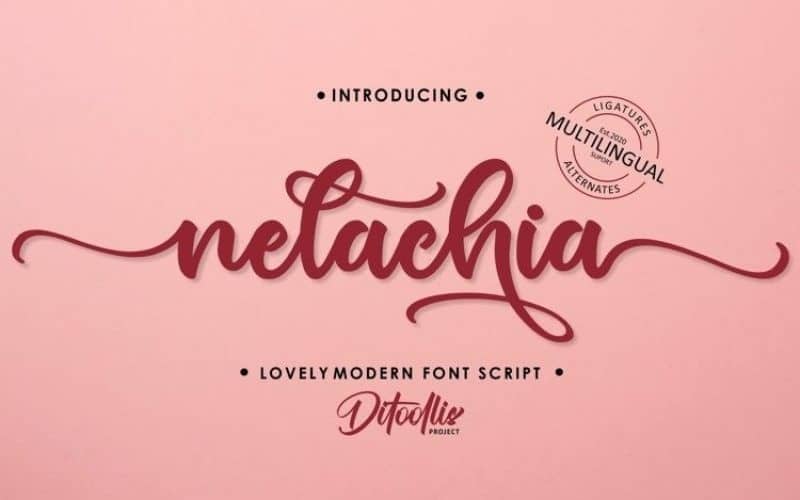
Nelachia Font
Nelachia Calligraphy Font
Nelachia Calligraphy Font is a modern script typeface created by DitoollisProject with fancy flourished stylistic alternates. You will also get a heart swirl in the beginning and at the end of each letter, both upper cases and lower cases. This font is suitable for business cards, logos, covers, comics, invitations, etc.